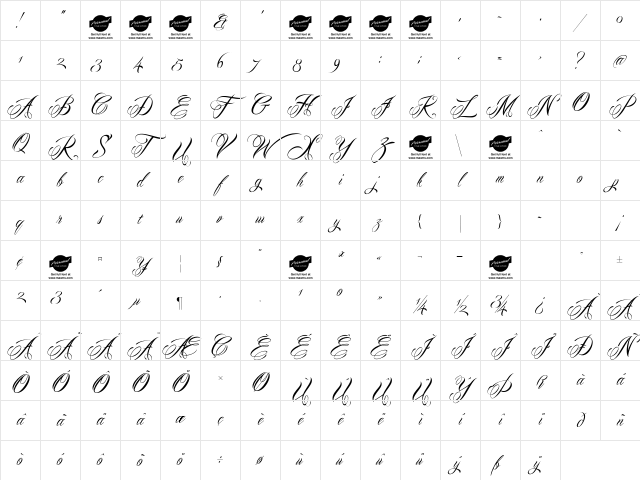
Complete Mardian Demo Regular glyph index. Displaying only characters natively supported by Mardian Demo Regular font.
Mardian Demo is a composed and adaptable typeface that performs quietly and consistently across a wide range of design contexts.
Who designed the Mardian Demo Regular font?
This font was published by Vicky Mardian and M Greb. Check the technical specs section for copyright and designer details.